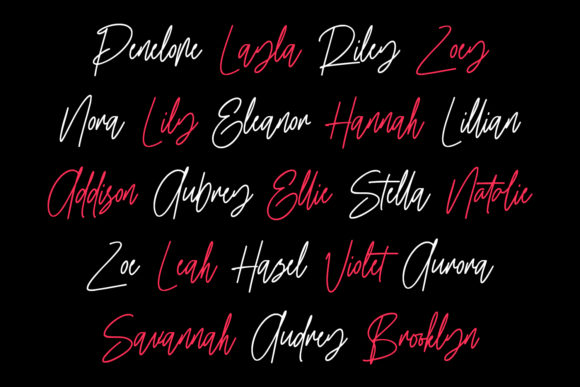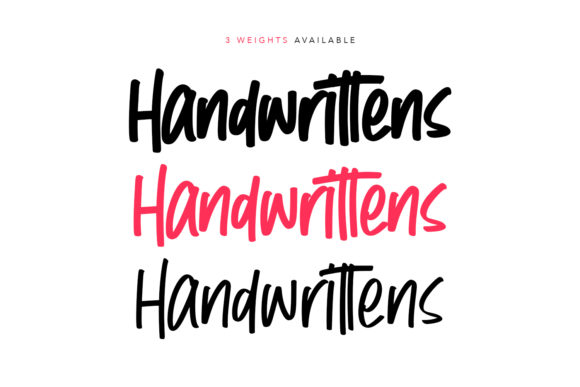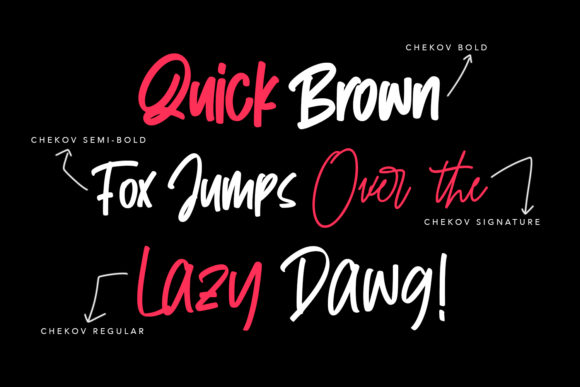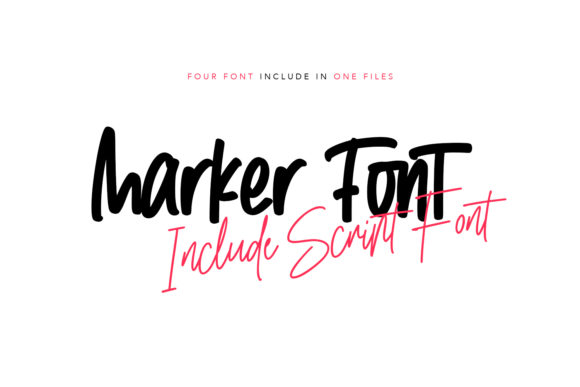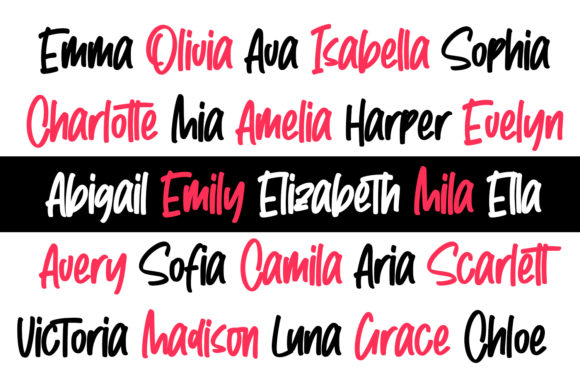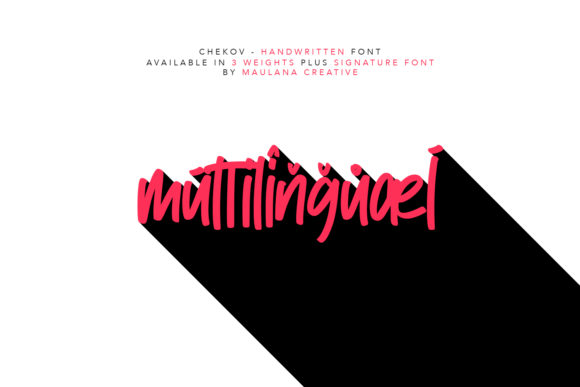
Introducing Chekov Font: A Bold and Simple Handwritten Style
Are you tired of using the same old fonts for your creative projects? Look no further than Chekov Font, a bold and simple handwritten font designed with the help of a brush pen. This unique font is sure to add a touch of personality and flair to your designs, making them stand out from the crowd.
The Story Behind Chekov Font
Chekov Font was created with the goal of bringing a fresh and modern take to the world of typography. The font’s designer used a brush pen to craft each letter, giving Chekov a distinctive and organic feel. The result is a font that is both bold and simple, making it perfect for a wide range of creative projects.
Key Features of Chekov Font
- Bold and Simple: Chekov Font is characterized by its bold and simple design, making it easy to read and perfect for headlines, titles, and other creative applications.
- Handwritten with a Brush Pen: The font’s unique, handwritten style was created using a brush pen, giving it a distinctive and organic feel.
- Versatile: Chekov Font is suitable for a wide range of creative projects, from digital designs to print materials.
Uses for Chekov Font
Chekov Font is a versatile font that can be used in a variety of creative projects, including:
- Digital Designs: Use Chekov Font to add a bold and simple touch to your digital designs, such as social media graphics, blog posts, and website headers.
- Print Materials: Chekov Font is perfect for print materials, such as brochures, flyers, posters, and business cards.
- Crafting Projects: Add a personal touch to your crafting projects, such as handmade cards, scrapbooking, and DIY home decor.
- Branding and Identity: Use Chekov Font to create a unique and memorable brand identity for your business or personal project.
Tips for Using Chekov Font
Here are a few tips for getting the most out of Chekov Font:
- Experiment with Different Sizes: Chekov Font looks great in a variety of sizes, from large headlines to smaller body text.
- Pair with Other Fonts: Try pairing Chekov Font with other fonts to create a unique and interesting contrast.
- Use for Headlines and Titles: Chekov Font is perfect for headlines and titles, where its bold and simple design can really make an impact.
Chekov Font is a bold and simple handwritten font that is sure to add a touch of personality and flair to your creative projects. With its unique, brush-pen design and versatile uses, Chekov Font is perfect for designers and crafters looking to try something new. So why not give Chekov Font a try and see how it can bring your ideas to life?